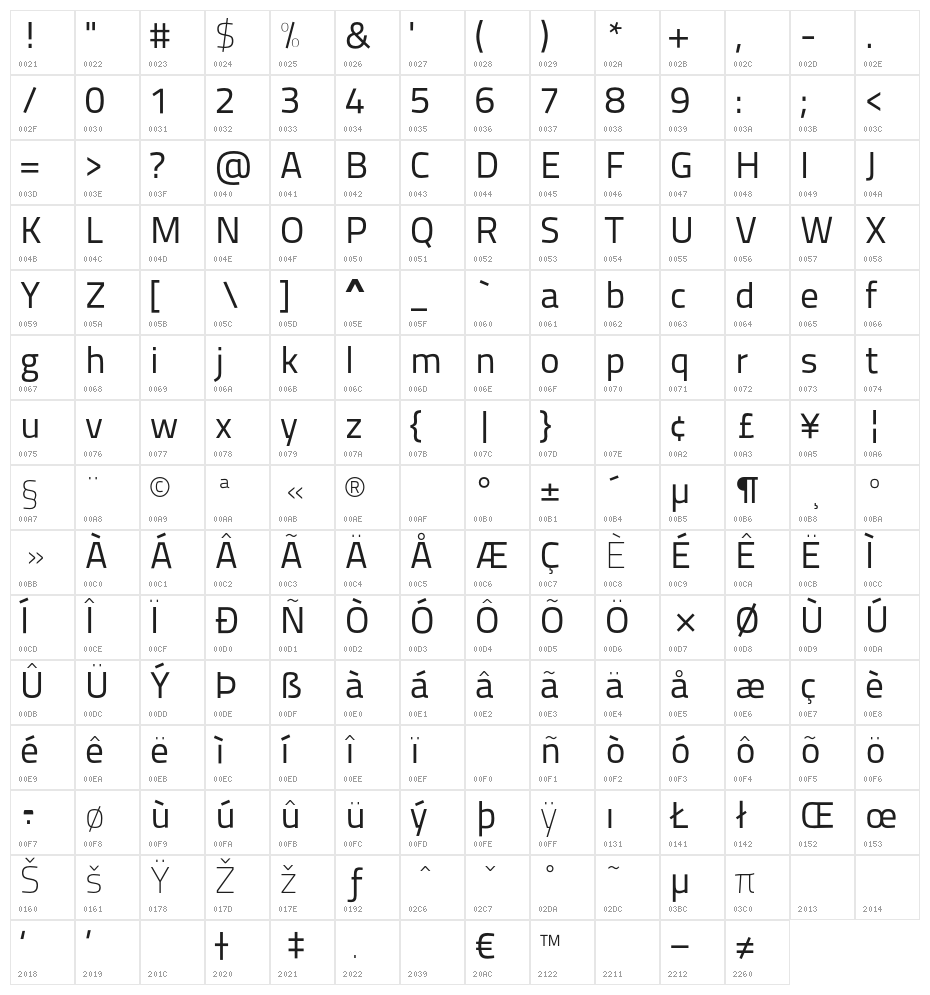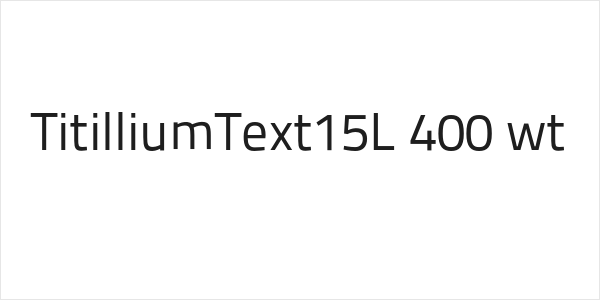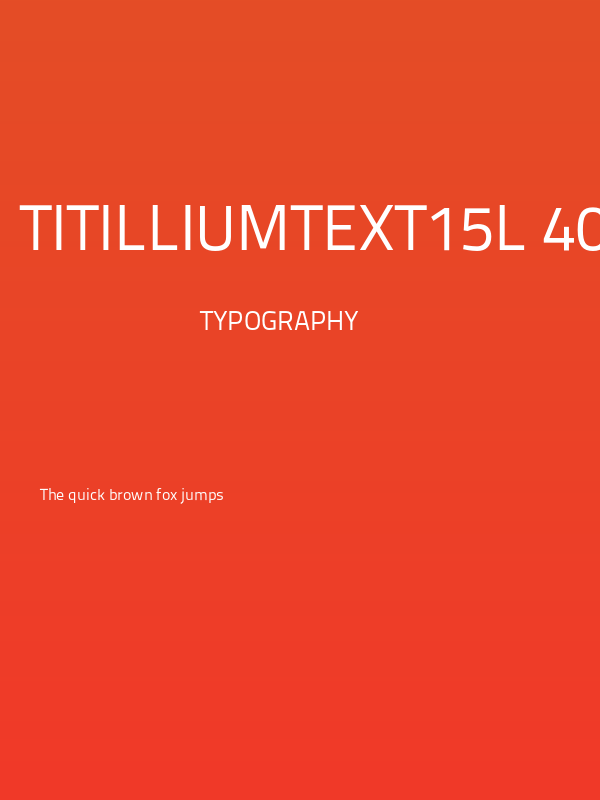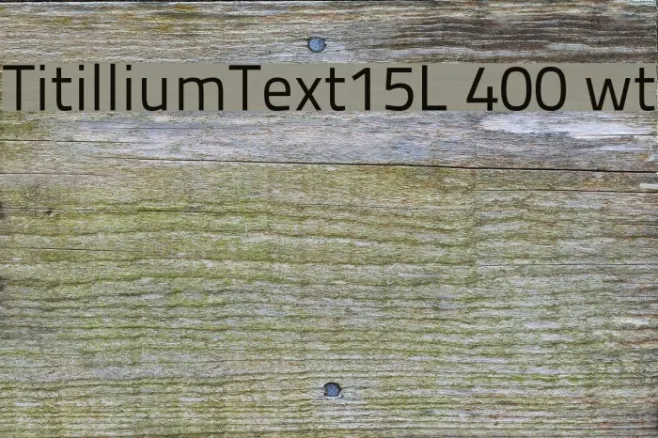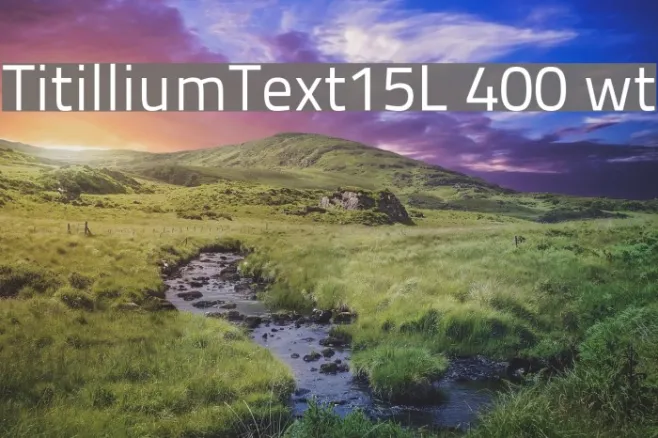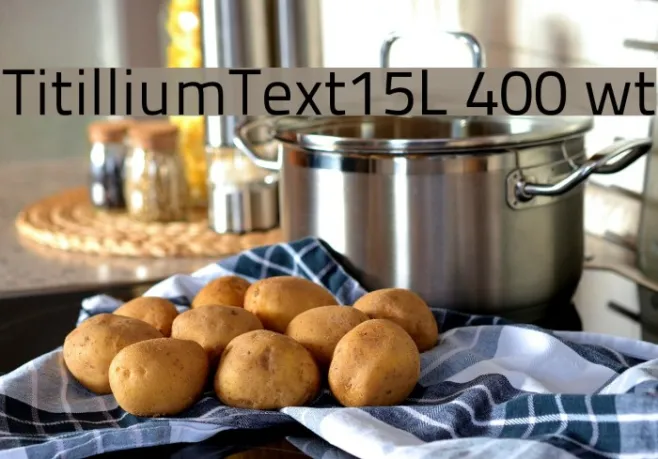
TitilliumText15L 400 wt Font
TitilliumText15L 400 wt Description
This font features a clean and modern sans-serif design with a geometric structure. The characters are well-proportioned, offering a harmonious balance between straight lines and subtle curves. The uppercase letters are bold and assertive, while the lowercase letters maintain a friendly and approachable appearance. The numerals are clear and easy to read, making them suitable for both digital and print formats. Special characters are distinct and well-integrated into the overall design, ensuring versatility across various applications.
| Use Case | Headlines, Body text, Logos |
| Proposed Projects | Ideal for web design, corporate branding, user interfaces, and editorial layouts. |